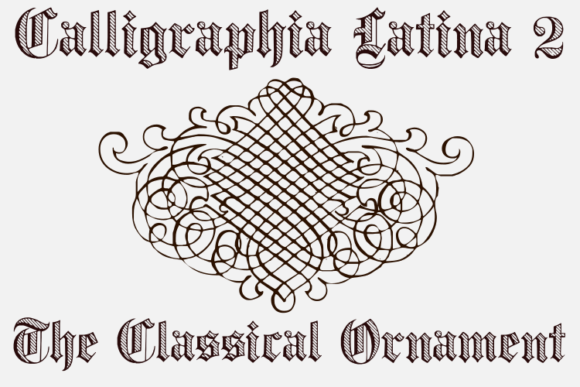
The Timeless Elegance of Calligraphia Latina 2 Font
- ✅ The classic-looking appeal that adds a touch of sophistication to any design
- ✅ The worn-down yet ornate look that gives off a sense of vintage elegance
- ✅ The versatility of dingbat ornaments that can be used in a variety of creative ways
While Calligraphia Latina 2 Font is an excellent choice, there are a few things to keep in mind: 🤔
- ⚠️ Some users may find the font a bit limited in terms of variations and styles
- ⚠️ The font may not be suitable for very small text sizes, as some details may get lost
Calligraphia Latina 2 Font was inspired by the classic calligraphy of ancient Rome. The font’s designer aimed to capture the elegance and sophistication of this timeless art form, while also making it accessible to modern designers and crafters. The result is a font that feels both vintage and fresh, perfect for a wide range of creative projects.
| Font Name | Calligraphia Latina 2 Font |
| Author | Intellecta Design |